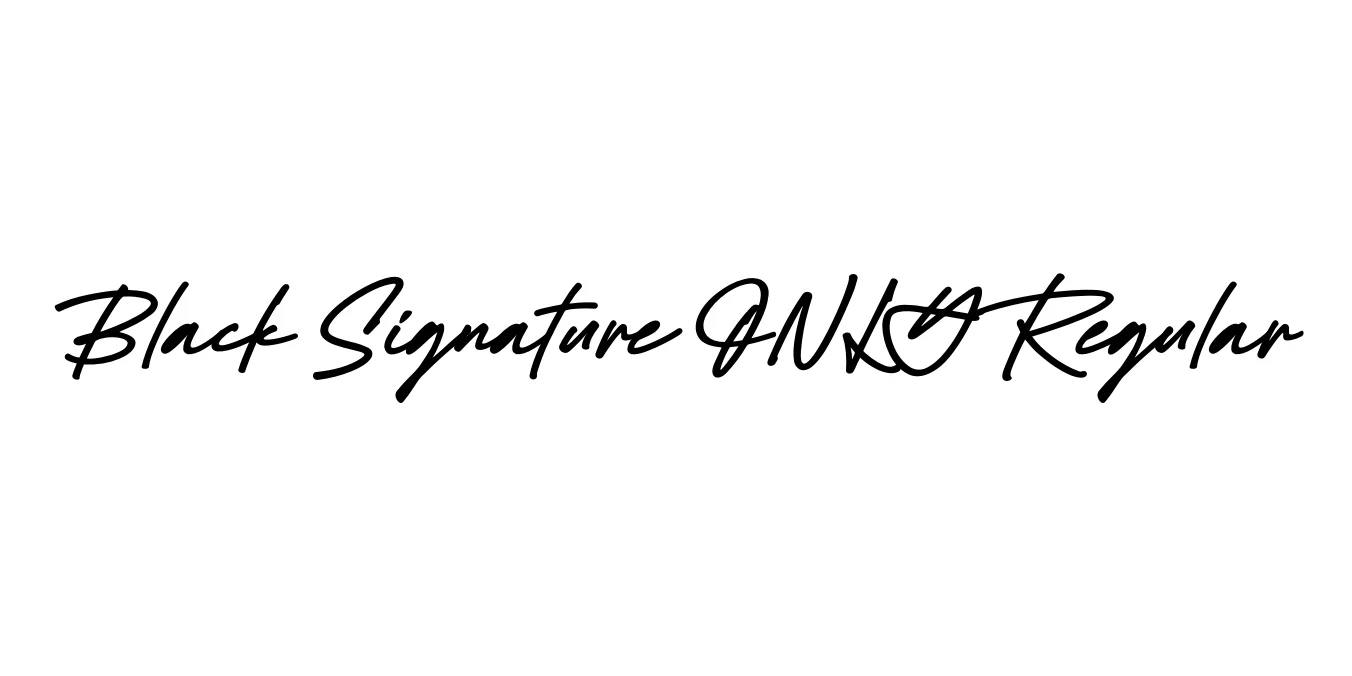
Black Signature Regular
Designed by Arizar Studio
| Category | Signature Script |
| Designer | Arizar Studio |
Black Signature ONLY Regular is a sophisticated and elegant script font meticulously crafted to mimic the fluid and natural motion of hand-drawn signatures. Developed by Arizar Studio, this typeface features elongated strokes and a refined organic flow that provides a touch of luxury and exclusivity to any creative design. Its thin, stylish lines are designed to provide a high-end feel, making it a popular choice for designers looking to add a personalized, human touch to digital and print media.
The font is particularly noted for its extensive character set, which includes graceful ligatures and stylistic alternates that enhance its signature-style aesthetic. Whether used for minimalist branding or elaborate decorative projects, Black Signature ONLY Regular maintains its legibility while exuding an air of sophistication. It is a versatile tool for professionals in the fashion, photography, and lifestyle industries who require a font that balances modern trends with timeless elegance.
Black Signature Regular Best Uses
Perfect for creating high-end, signature-style brand identities and logos.
Ideal for elegant wedding invitations, RSVP cards, and personalized place settings.
A great choice for professional watermarking and aesthetic photo overlays.
Enhances lifestyle graphics, inspirational quotes, and Instagram stories.
Adds a sophisticated and personalized touch to professional contact information.